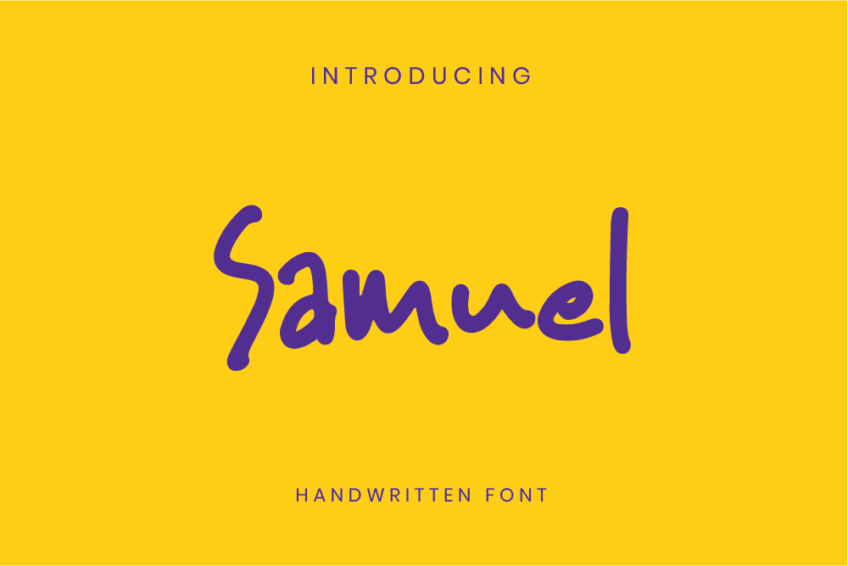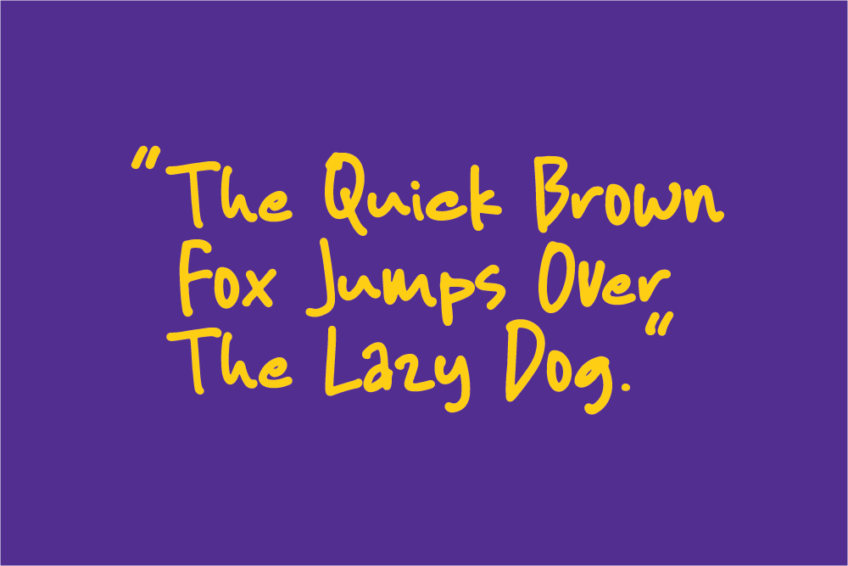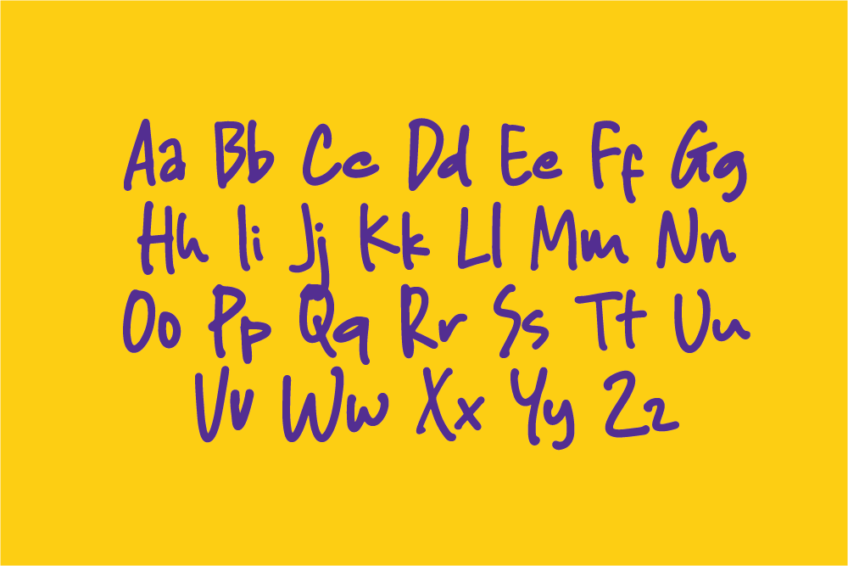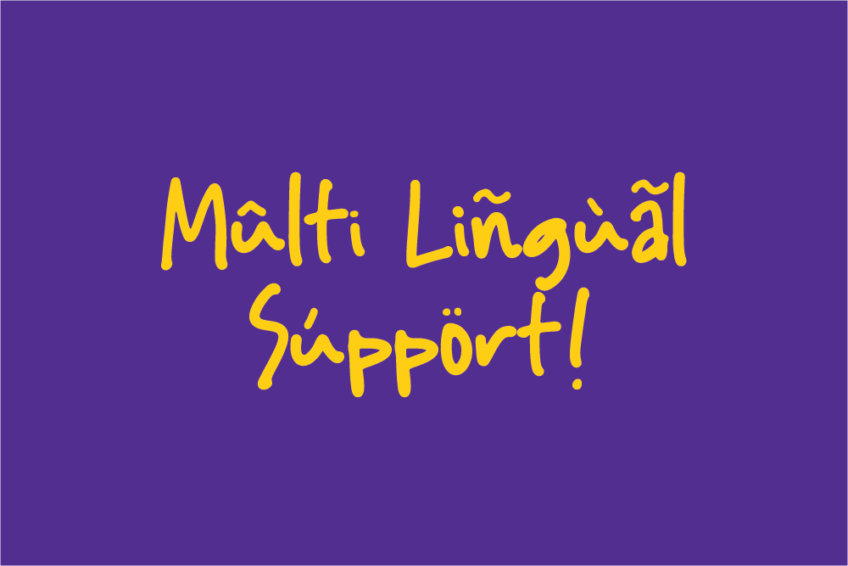
Immerse your designs in the genuine charm of Samuel Handwritten Font, a Font that Looks Like Handwriting Word designed to resemble the natural flow of handwriting. With its organic strokes and playful details, this font creates an authentic handwritten word look that adds a touch of warmth and personality to your projects.
Samuel is perfect for various applications, from greeting cards and invitations to branding materials. The carefully crafted characters make each word appear as if it were lovingly handwritten, bringing a unique and genuine quality to your text. Elevate your designs with Samuel a Font that Looks Like Handwriting Word and experience the artistry of authentic script.